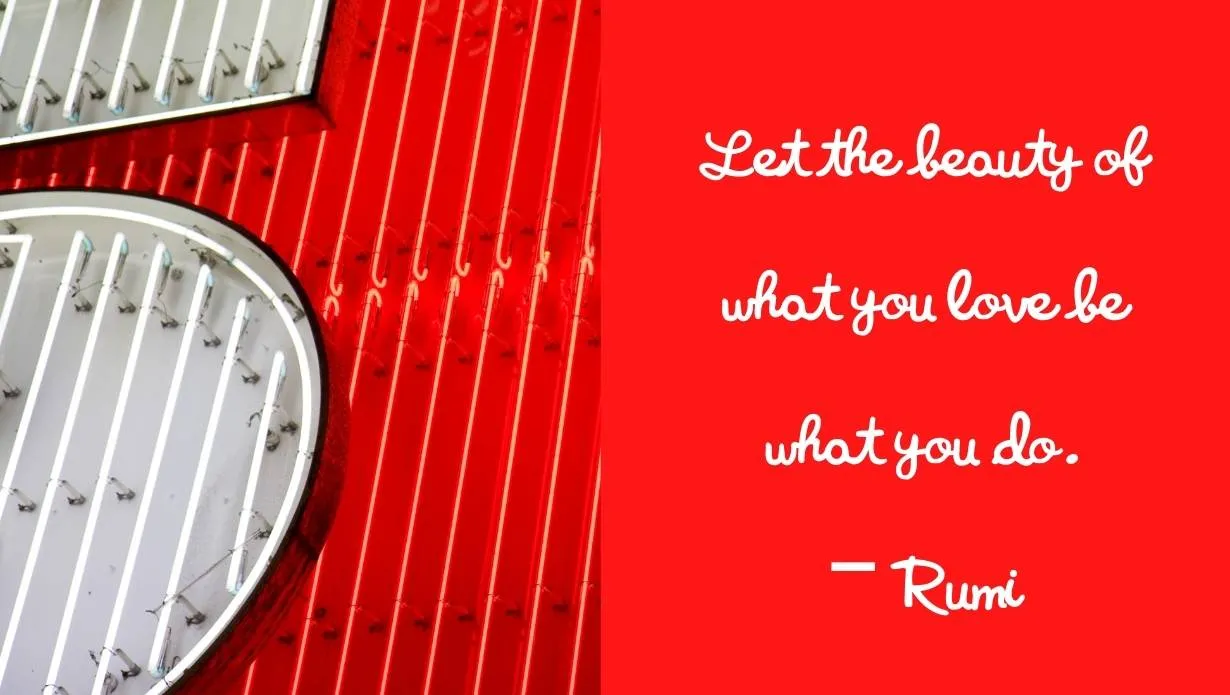
Chick Fil Font was developed and published by Richards Group. This attractive typeface belongs to the Script Fonts family. In the year 1946, this cute font was designed for the name very famous American restaurant. This font contains more than 93 famous characters.
These special characters make it popular in the fonts family. This stylish typeface comes in special Glyphs. The main use of this attractive and awesome typeface is used for Movie posters. Streetlight Font is similar to this typeface.
Chick Fil Font Family
| Name | Chick Fil Font |
| Designer | Richards Group |